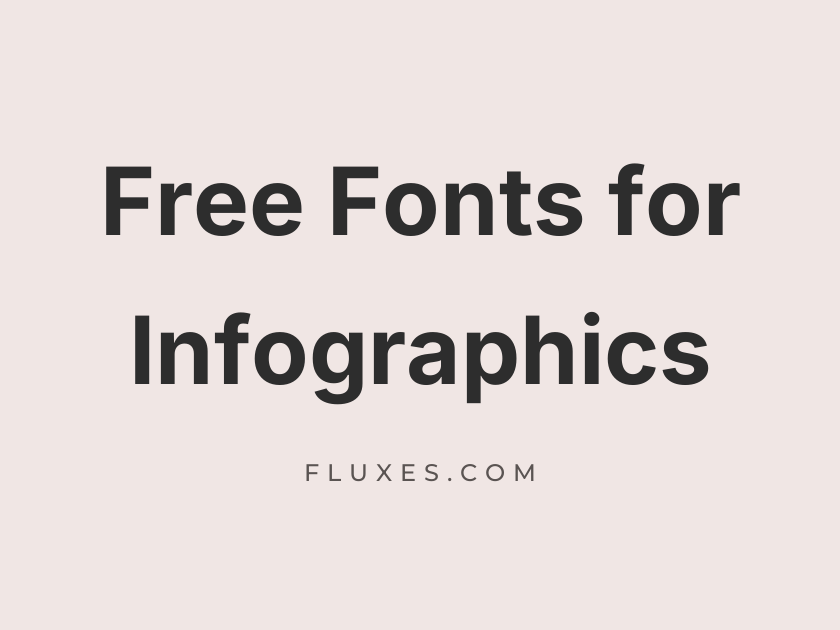
59 Best Free Fonts for Infographics
Infographics live or die by type choice as much as by chart design. A typeface that looks elegant in a headline can turn to mush the moment it’s shrunk down to label a pie chart, and a font built for print can feel stiff and lifeless next to bright, flat-color bars and icons. The best free fonts for infographics tend to fall into a few practical categories: clean, neutral sans serifs for body copy and data labels, bold condensed or slab display faces for the big headline statistic, and the occasional monospace for tables of figures that need to line up in tidy columns.
Inter was built for screens, and it shows in the even rhythm of its lowercase letters and the way numerals line up cleanly in a column of figures. It has become close to a default choice for dashboards and data-driven interfaces, staying legible on a chart legend even when squeezed down small.
Because Inter includes proper tabular figures, columns of statistics stay aligned instead of drifting, which matters more in infographic design than almost anything else.
Designed in-house at IBM as a free alternative to Helvetica, Plex Sans carries a slightly engineered, technical feel suited to corporate reports and scientific infographics alike. Pair it with IBM Plex Mono for the numbers and the whole piece reads as one coherent system.
Work Sans reads as friendly and unforced, with open counters that hold up even when a caption shrinks to make room for a busy chart. It’s a dependable body text choice when the visuals are doing the heavy lifting and the type just needs to stay out of the way.
Adobe’s first open source typeface remains one of the most neutral, workmanlike sans serifs available for free, exactly what’s needed when labels and captions shouldn’t compete with icons or color-coded bars.
Roboto’s mechanical skeleton with slightly humanist curves stays comfortable at both display size and caption size, which is why it turns up constantly in app-style infographics and dashboard interfaces.
Open Sans counts as one of the safest choices in the free font world: wide apertures, a generous x-height, and a businesslike but friendly tone that keeps long explanatory captions readable at a glance.
Lato carries a warm, slightly rounded feel without tipping into playful territory, a solid pick for infographics aimed at a general audience rather than a technical one.
Mulish is a low-contrast, minimal grotesque that fades into the background nicely, useful for the small print, sourcing notes, and axis labels every good infographic needs somewhere.
Manrope’s slightly geometric letterforms and generous spacing give it a modern, tech-forward look that pairs well with flat icon sets and bold color blocks.
Quirky little details, like the unusual curve of its lowercase ‘a’, give Karla a bit more personality than most neutral grotesques on this list, without ever sacrificing clarity.
Jost borrows its bones from 1920s geometric sans serifs like Kabel, bringing a period design flavor at no cost, useful when the surrounding chart or palette leans retro or Bauhaus-inspired.
Poppins’ perfectly circular bowls give it an approachable, geometric-toy quality that suits lighter, consumer-facing infographics. Its rounded forms can blur together at very small sizes, so it’s better reserved for headings and callouts than dense body text.
Nunito Sans softens its rounded cousin Nunito into something more neutral and better suited to body copy, keeping just enough warmth for a wellness or lifestyle-themed chart.
Rounded corners keep Rubik friendly at large sizes, while its wide, sturdy proportions keep it legible even squeezed into a narrow chart column.
DM Sans is a low-contrast geometric sans built specifically with screens in mind, tidy and unfussy enough to sit comfortably next to charts, icons, or photography.
If your infographic includes a lot of numeric data, look for fonts with tabular figures so columns of numbers stay aligned instead of drifting out of line.
With this many solid, genuinely free options on Google Fonts, there’s rarely a reason to reach for a paid alternative when building an infographic. The right combination comes down to matching a font’s personality, whether technical, editorial, or playful, to the story the data is actually telling.